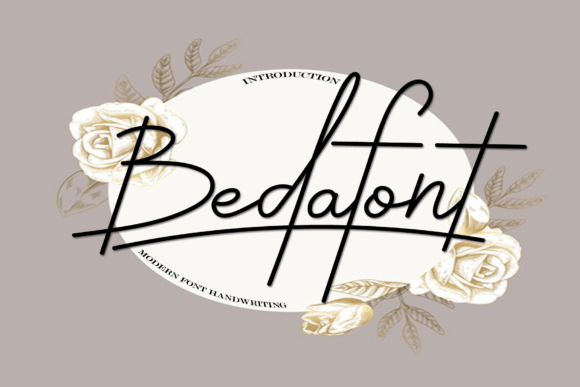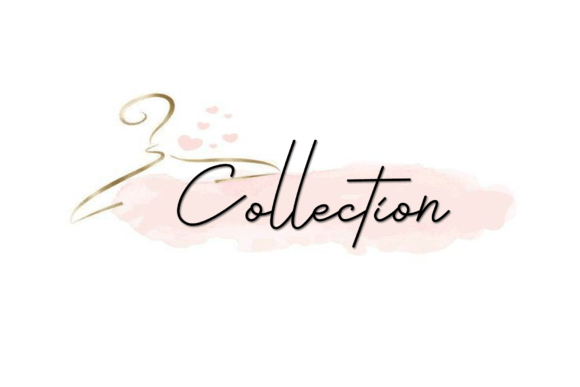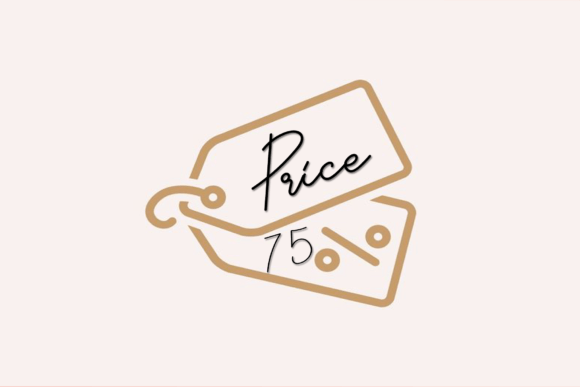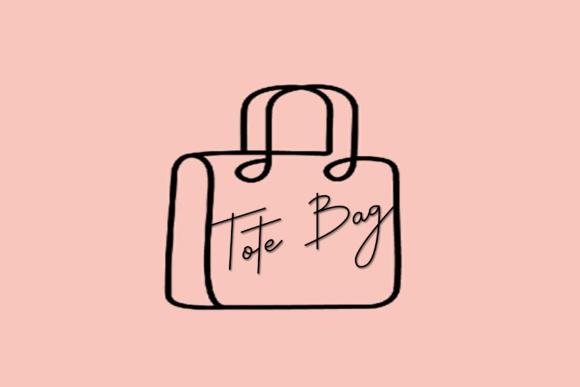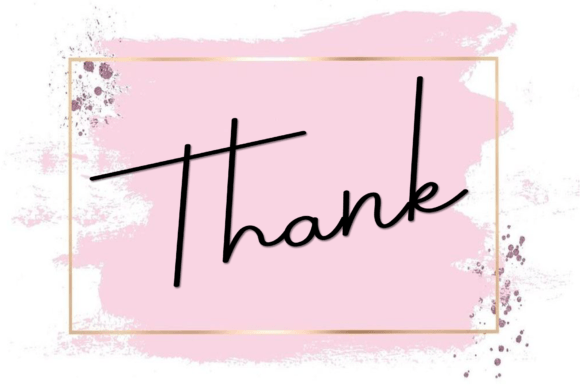
Bedafont Font
Add Handcrafted Elegance with Beda Font
Beda Font is a classic handwritten script that blends simplicity with a freestyle charm. Designed to feel spontaneous and natural, this font gives your projects a handmade, personal touch. With every stroke, Beda Font captures the essence of informal handwriting while maintaining a polished and modern appeal.
Whether you’re designing for digital platforms or print media, this font adapts with ease. From stylish headlines to casual branding, Beda Font invites you to express your creativity with confidence.
Where to Use Beda Font
One of the biggest advantages of Beda Font is its flexibility. It works well in a wide range of visual projects, offering personality without compromising readability. You can use it across various creative contexts, such as:
• Logotypes and brand marks
• Apparel and product packaging
• Poster design and album covers
• Book and magazine titles
• Comic books and digital cartoons
• YouTube thumbnails and social media graphics
• Website headers and banner designs
Because Beda Font carries a casual yet clean look, it’s great for projects that require a personal feel but still need to look professional.
Choosing a font can shape the emotional tone of your message. Beda Font offers a sense of authenticity and friendliness that resonates with audiences. Its smooth flow and simple curves evoke a handwritten note or sketch, perfect for designs that need to feel approachable and unique.
Moreover, Beda Font brings structure to its playful style. While the strokes are intentionally freeform, they are also balanced—making the font suitable for titles, branding, and design projects that need consistency. If you’re aiming for originality without sacrificing clarity, this typeface is a solid choice.
Get Creative with a Personal Touch
If you’re tired of generic typefaces and want something that feels more human, BedaFont is the answer. It helps convey emotion and individuality in every letterform. You can use it for casual quotes, handmade product labels, or heartfelt messages in your marketing materials.